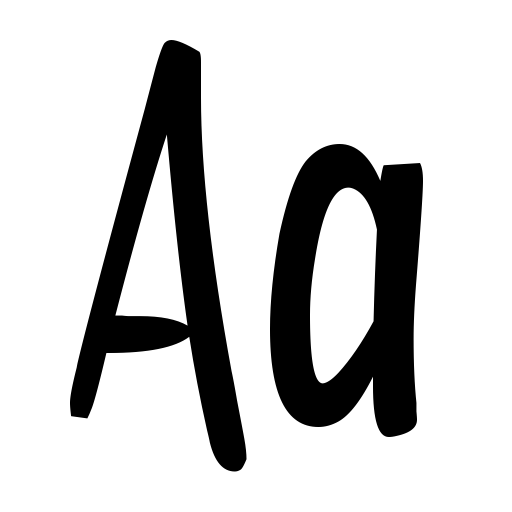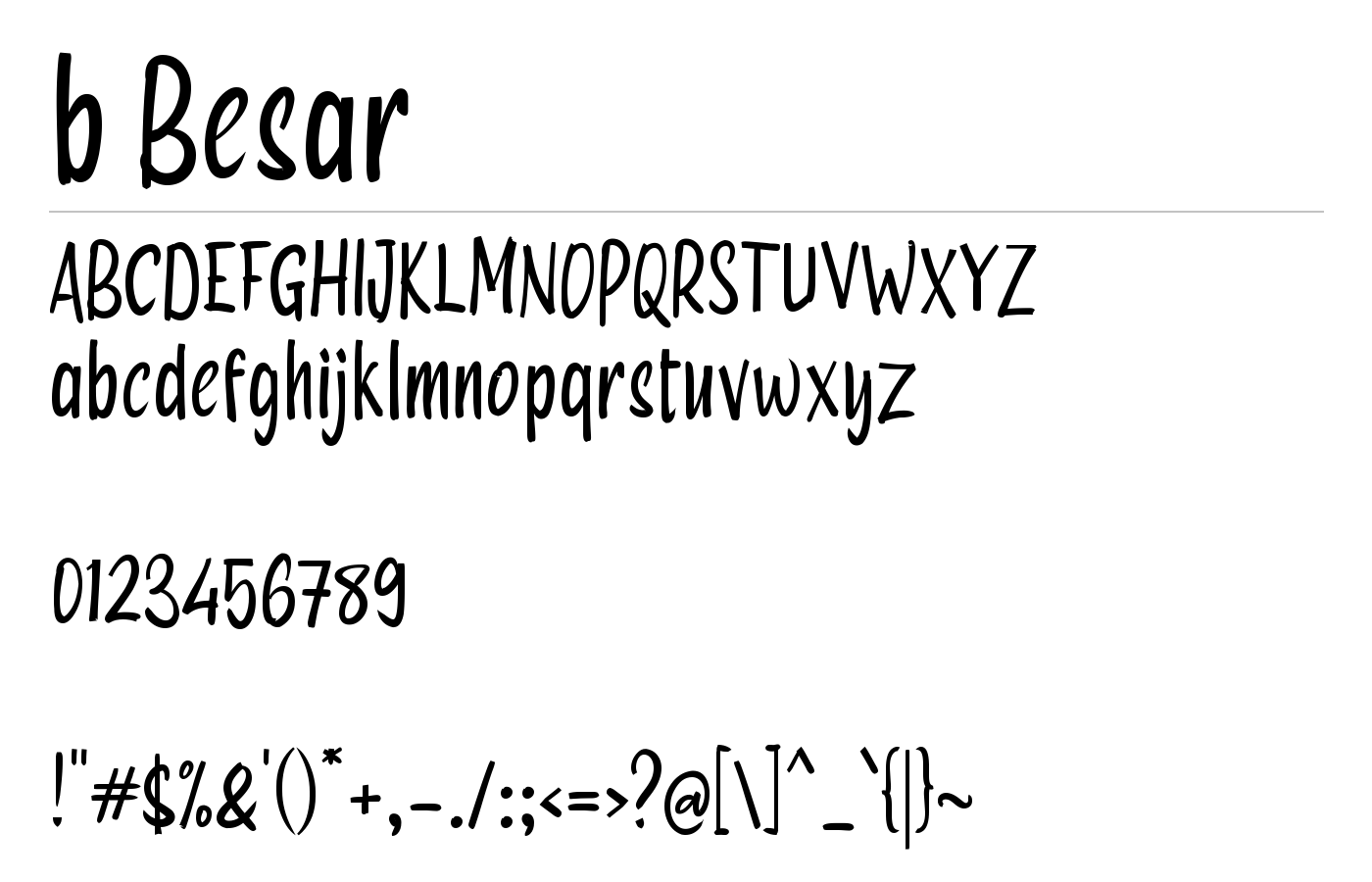
b Besar is a playful and casual handwritten sans serif font with tall, narrow letterforms and a lively, uneven stroke style that gives it a friendly, informal charm. Its upright letters feature a slightly condensed width with consistent light to medium weight strokes, making it ideal for creative and approachable designs like posters, children’s books, and casual branding. This font brings a warm, personal feel that suits projects needing a fun yet clear and readable aesthetic.
b Besar Font